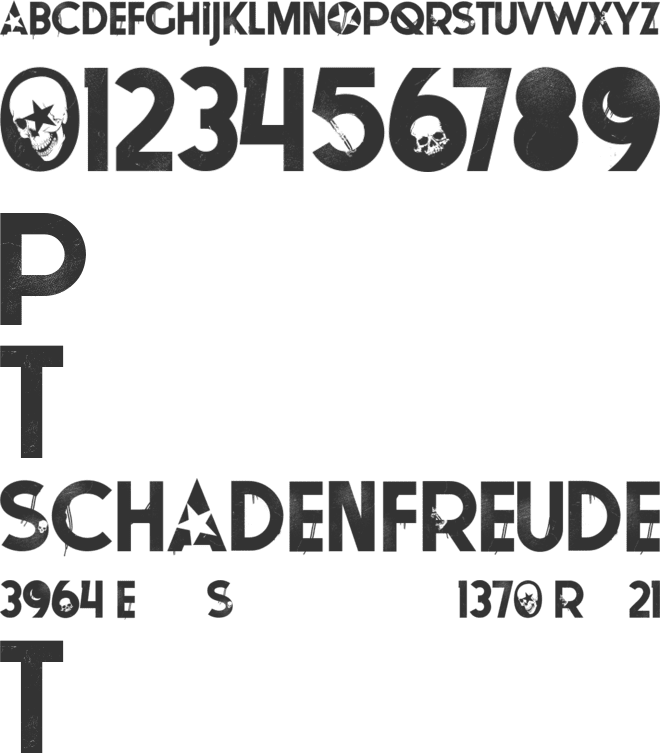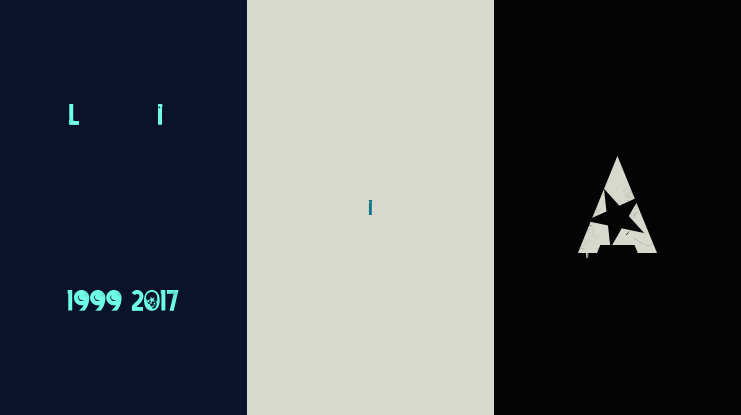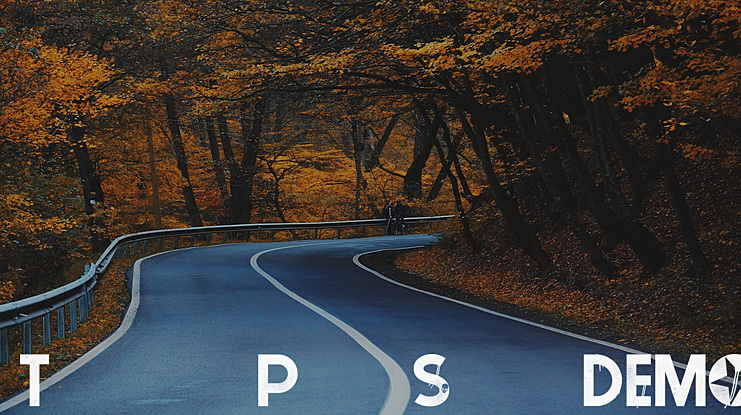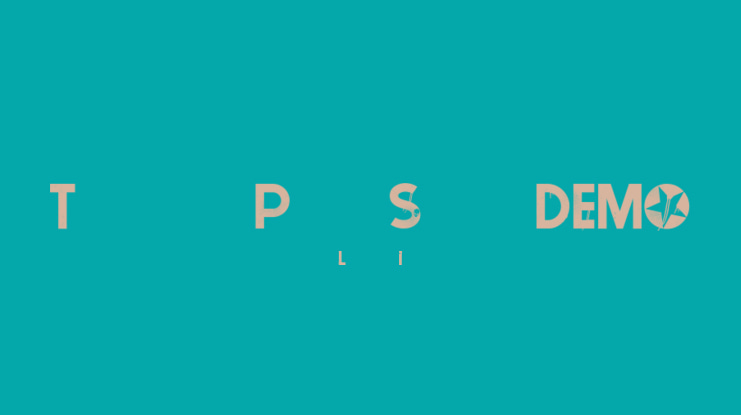
Tokyo Pop Star DEMO Font
This font is the result of strenuous labor, and heartfelt sadness.
This font is destined to be LARGE. While it's a characteristically grungy masterpiece, at large size it has many extra details that aren't visible at a smaller proportion. In short, the bigger you make it, the more it transforms.
This font is totally free. This is a grunge version of a font that I am currently working on, with more weights to come. Please use this font however you see fit. The grunge look is to exemplify the true potential of this font.